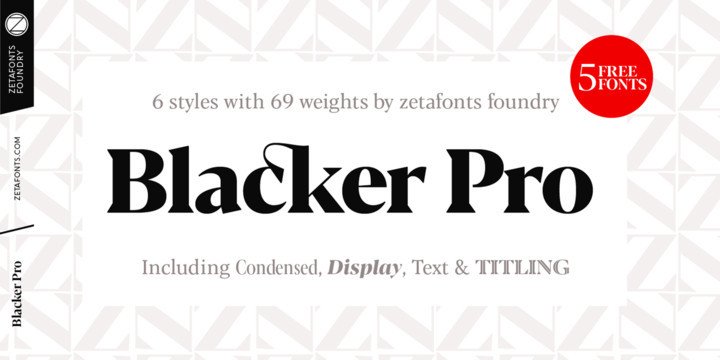
Blacker Pro Serif Font
Blacker Pro Serif Font is the revised and extended version of the original wedge serif type family designed by Cosimo Lorenzo Pancini and Andrea Tartarelli in 2017. Blacker was developed as a take on the style that Jeremiah Shoaf has defined as the “evil serif” genre: typefaces with high contrast, oldstyle or modern serif proportions and sharp, blade-like triangular serifs.